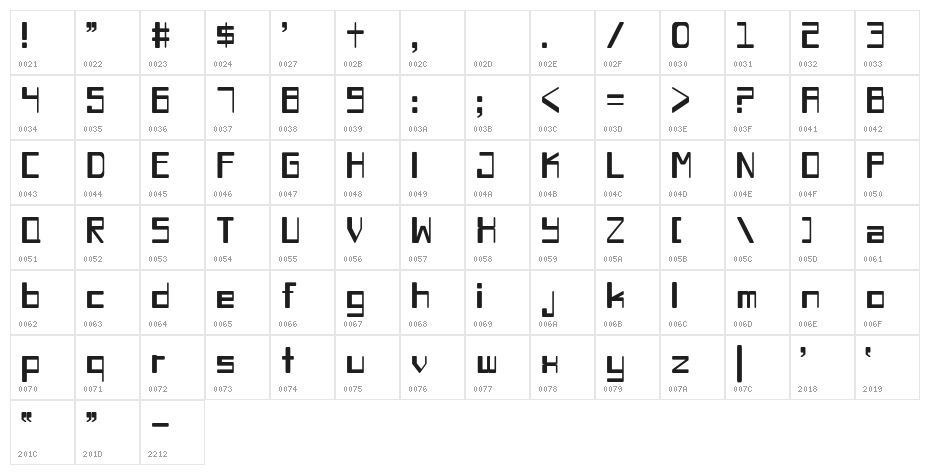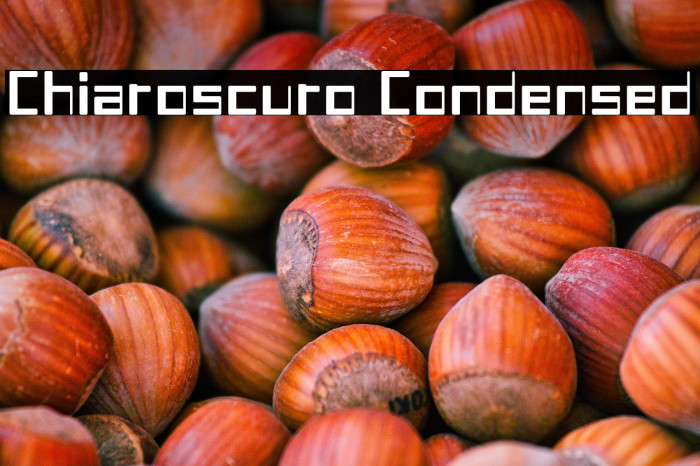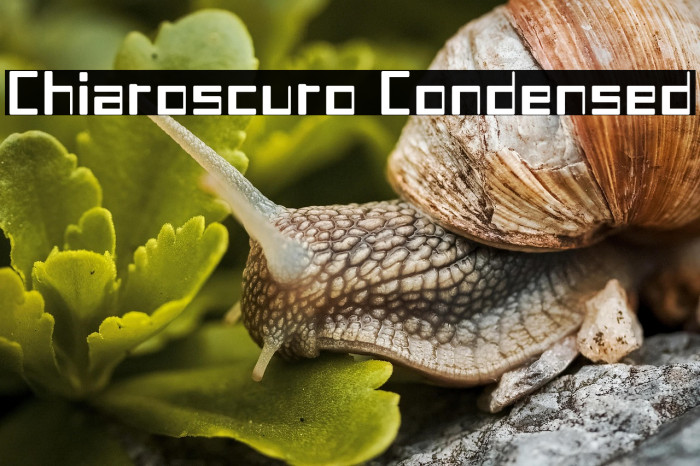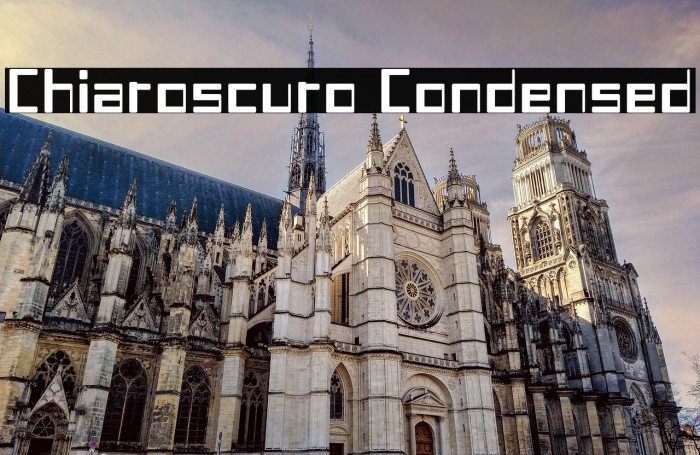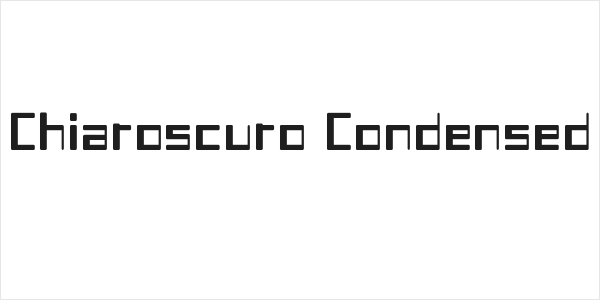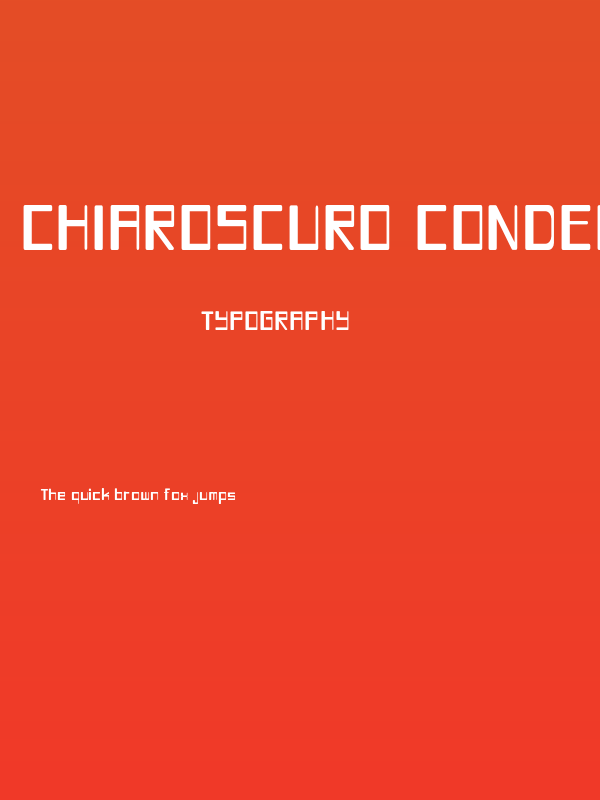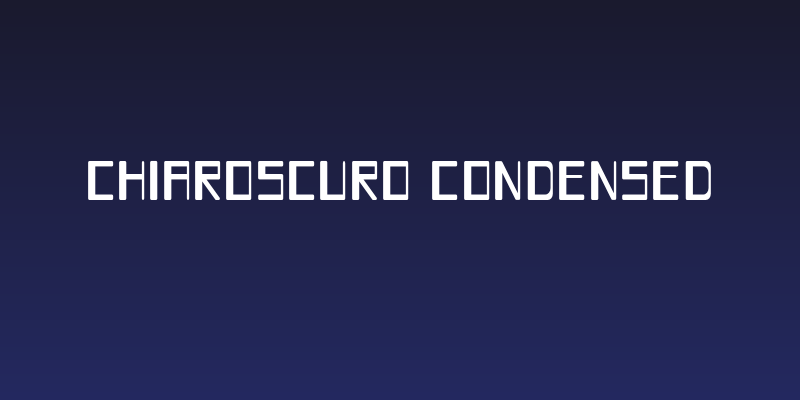
Chiaroscuro-Condensed Font
Chiaroscuro-Condensed Description
This font features a modern and geometric design with a condensed structure, characterized by its clean lines and uniform stroke width. The uppercase letters are bold and impactful, while the lowercase letters maintain a consistent style that complements the uppercase. The numerals are distinct and easy to read, with a similar geometric style that ensures clarity. Special characters are designed to match the overall aesthetic, providing a cohesive look across all elements. The font's condensed nature makes it suitable for space-saving applications without sacrificing readability.
| Proposed Projects | Ideal for modern branding, editorial headlines, posters, and digital interfaces where space is limited. |